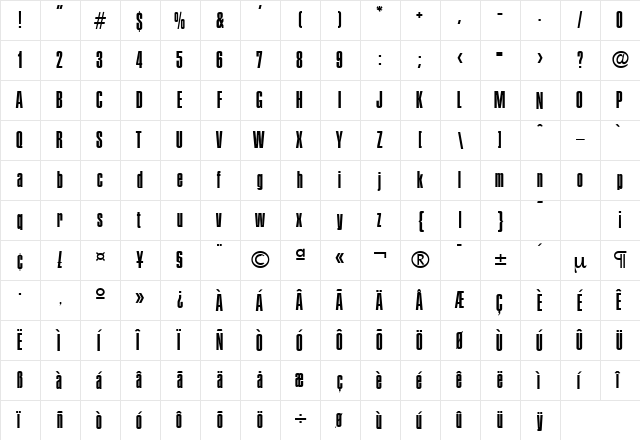
Plakette-Serial DB Regular
Design Context for Plakette-Serial DB Typeface
Plakette-Serial DB is a composed and adaptable typeface that performs quietly and consistently across a wide range of design contexts.